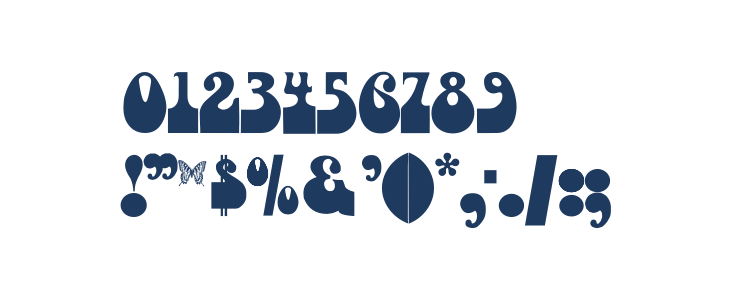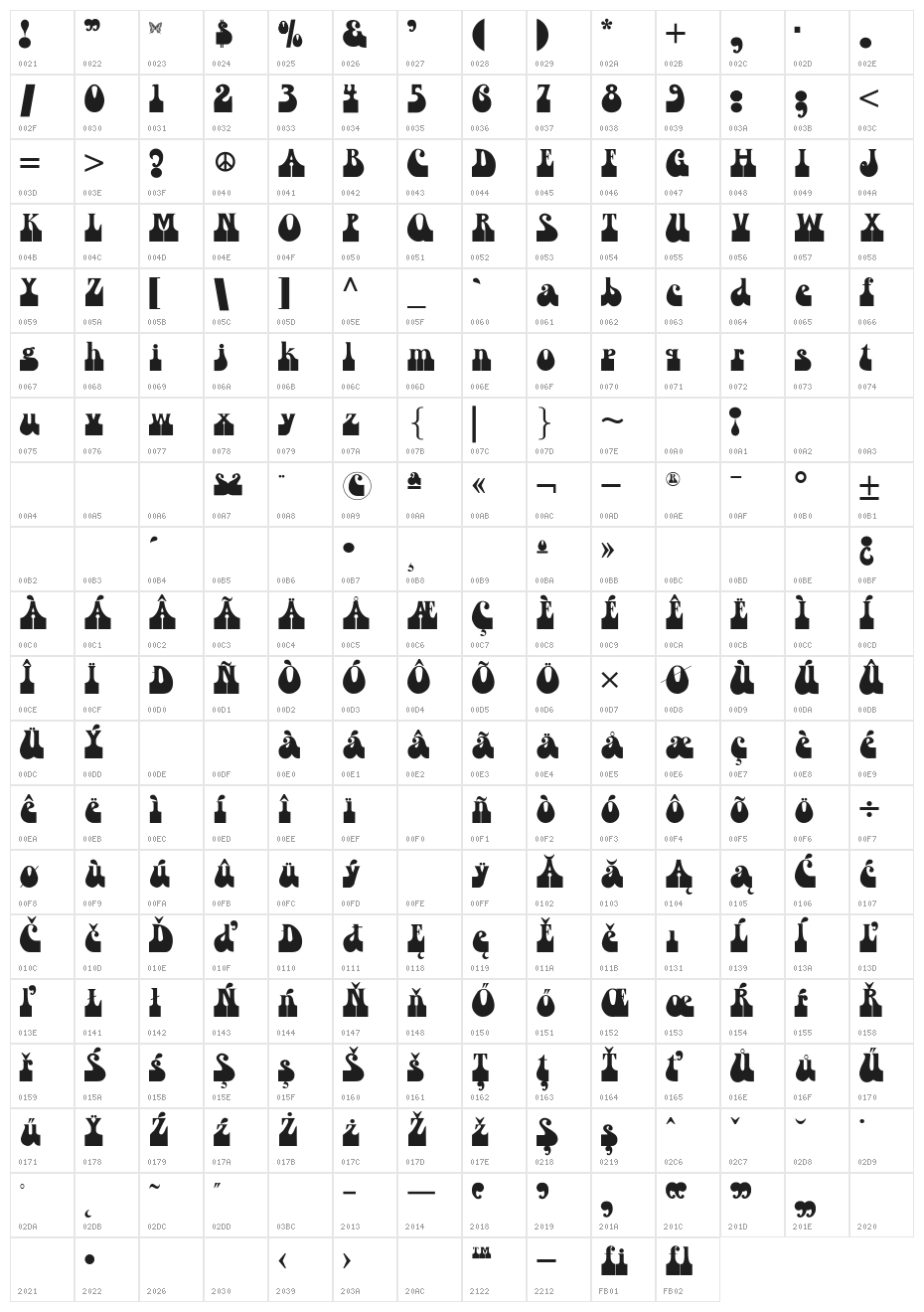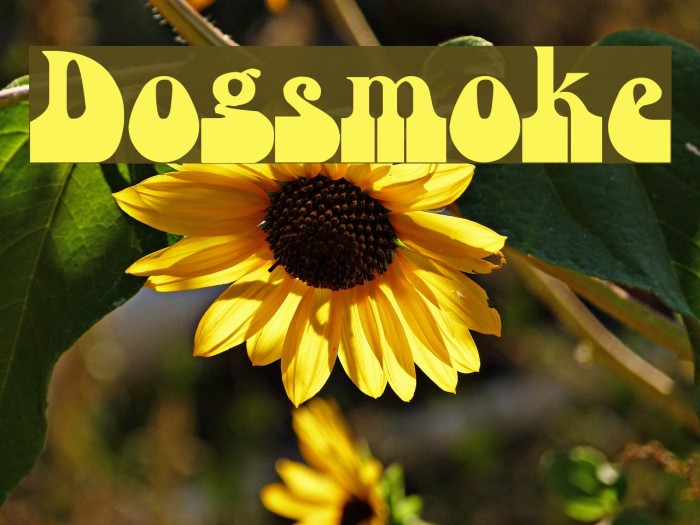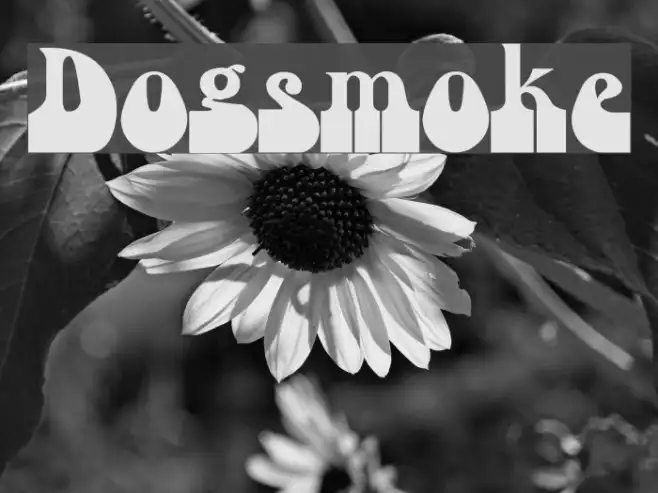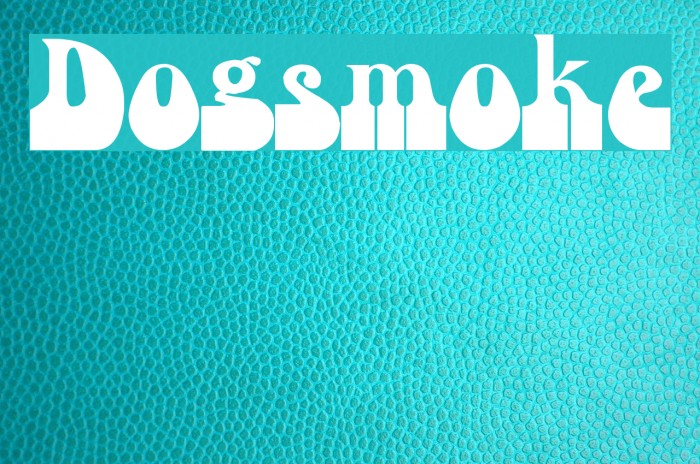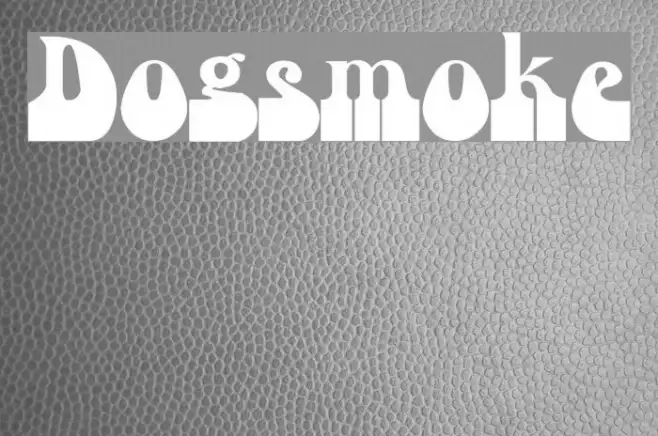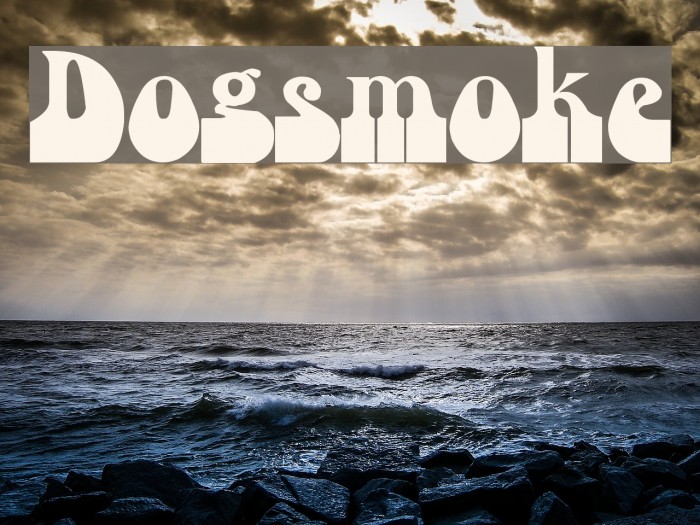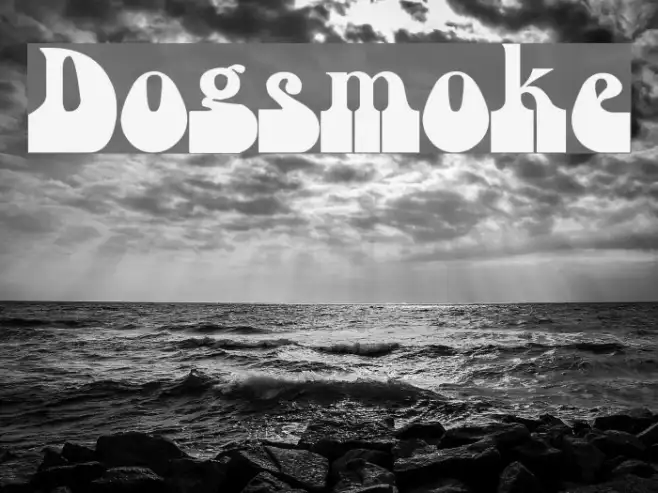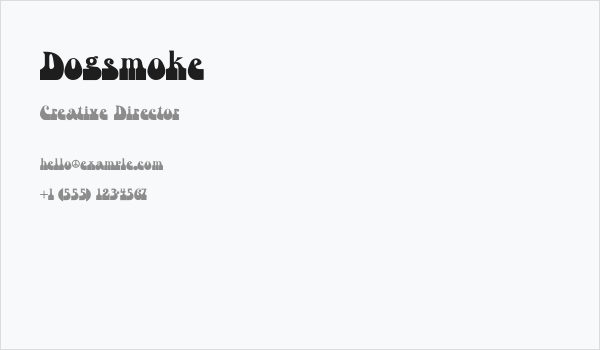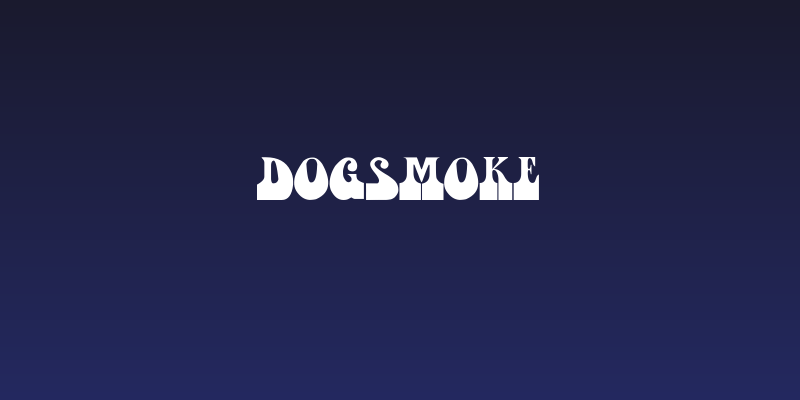
Dogsmoke Font
Dogsmoke Description
This font features a bold and striking design with a unique blend of geometric and organic shapes. The letters are characterized by thick, block-like forms with rounded edges, creating a playful yet commanding presence. The uppercase and lowercase letters maintain a consistent style, with some characters incorporating unexpected curves and angles that add to the font's distinctiveness. The numbers and special characters follow the same bold aesthetic, ensuring a cohesive look across all text elements. This font's high contrast and wide character spacing make it highly legible while retaining a decorative flair.
| Proposed Projects | Ideal for branding, poster design, and any project requiring a bold, eye-catching typeface. |